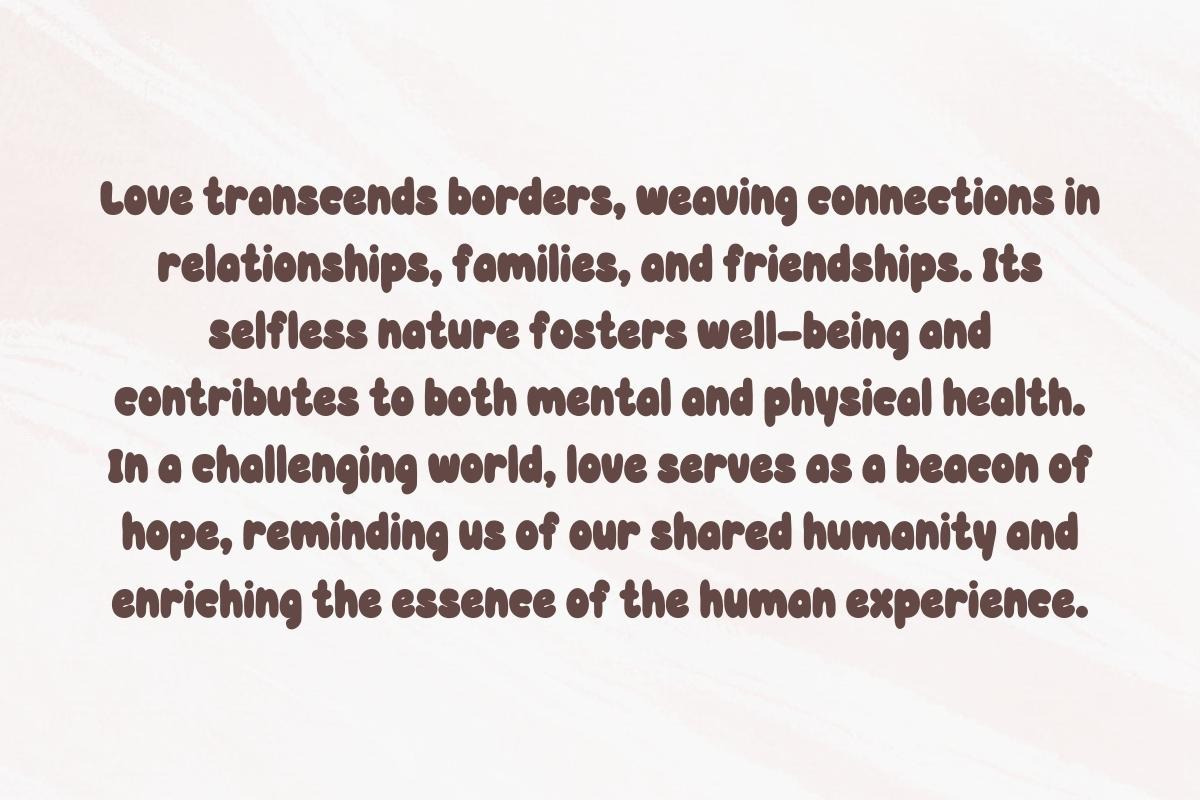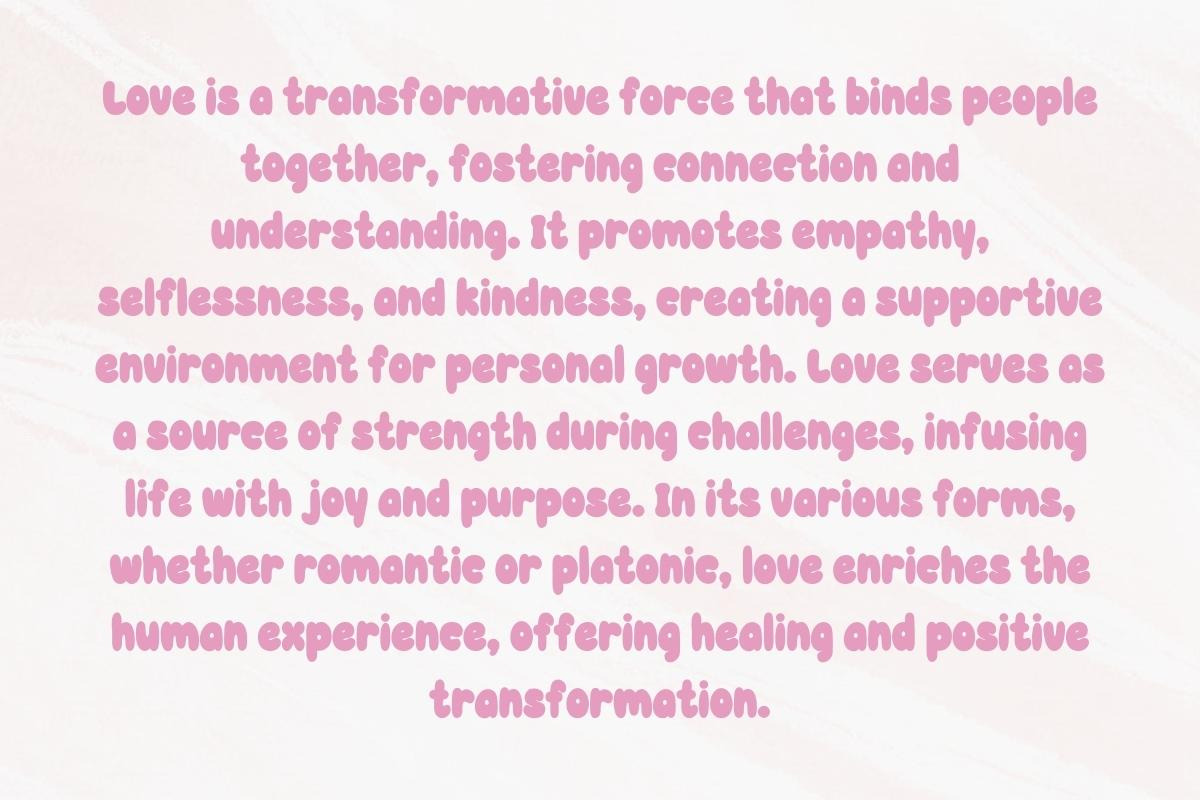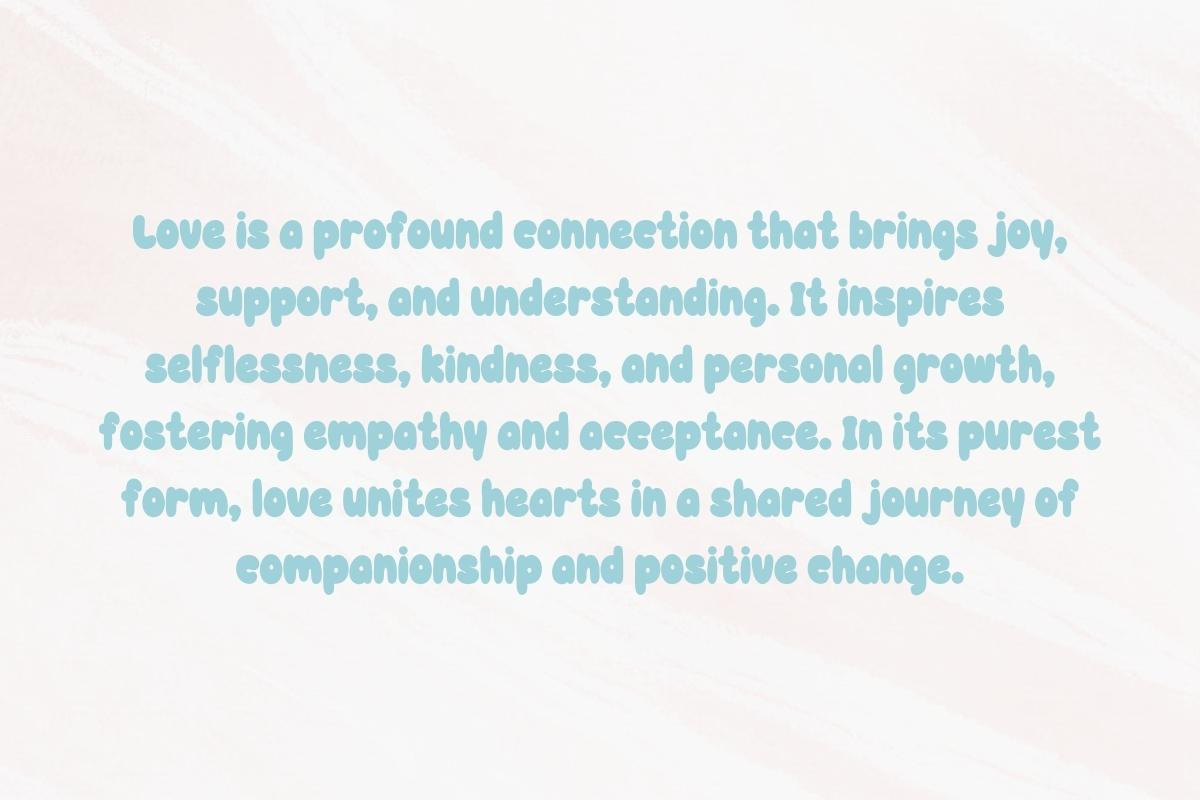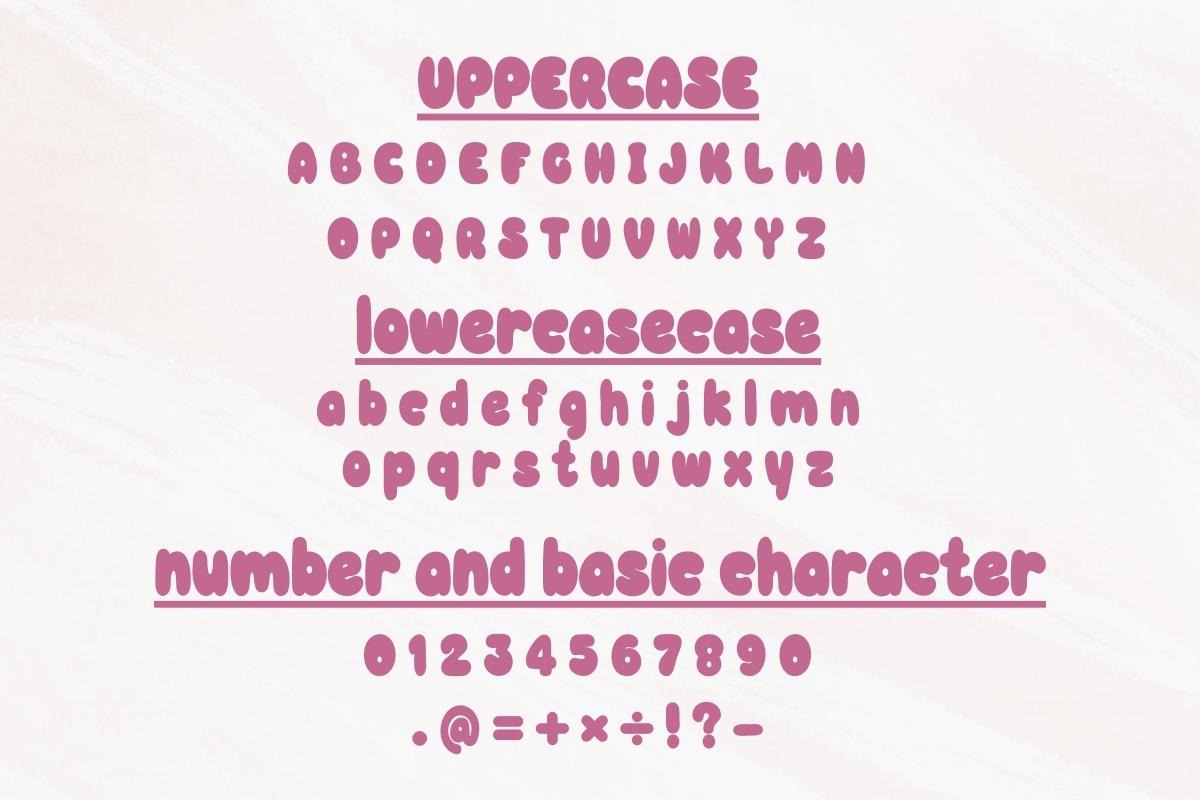
Love Valentine - Handwritting
"Love Valentine, a groovy font with timeless appeal, effortlessly transports its retro charm across eras, bringing a romantic and stylish beauty to every letter, making it a versatile choice that transcends the boundaries of time."